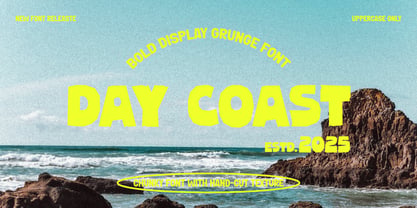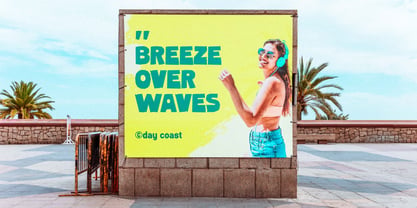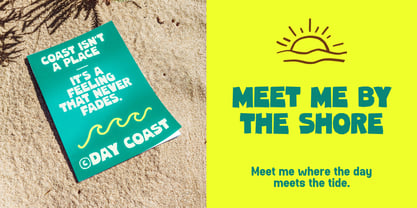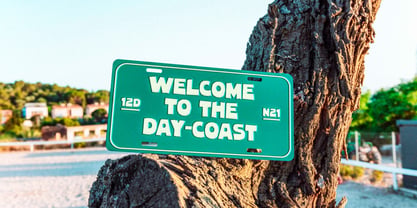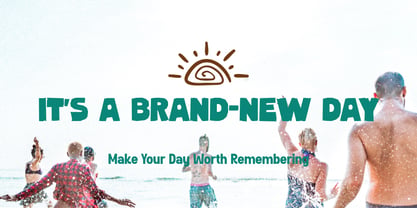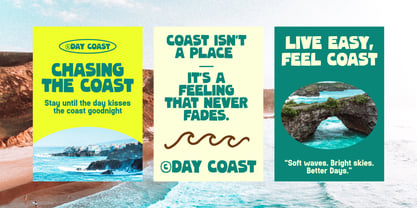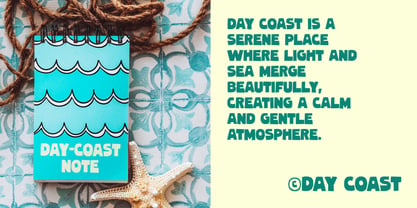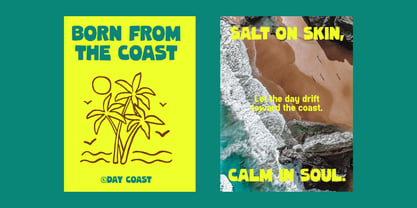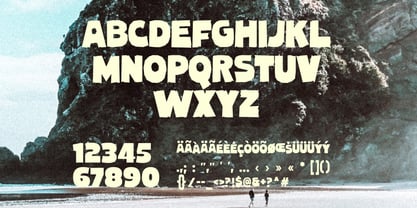
Day Coast
The Day Coast Font Family was designed by Excellent Ritma Florendia and published by Coasta. Day Coast contains 1 styles. More about this family
Day Coast is a robust and expressive bold display grunge font, characterized by its distinct chunky, hand-cut texture. This typeface masterfully captures a raw, adventurous spirit, making it the perfect choice for designs that demand a rugged, authentic feel. It shines in vintage music posters, branding for surf and skate shops, logos for outdoor apparel lines, and any retro-inspired design project. The font's rough, organic edges and high-contrast letterforms evoke a powerful coastal adventure vibe, ensuring a strong and immediate visual impact. Day Coast is exceptionally ideal for creating standout headlines, establishing memorable brand identities, and building dynamic, attention-grabbing typography compositions that truly tell a story.